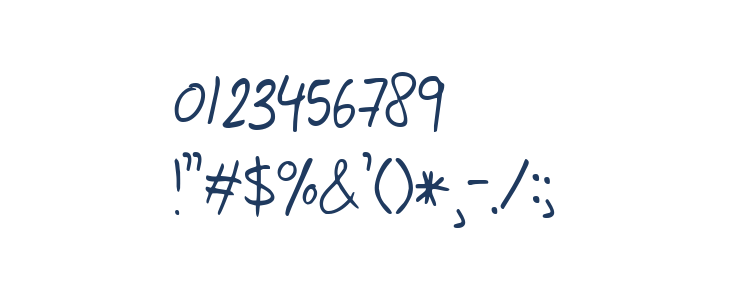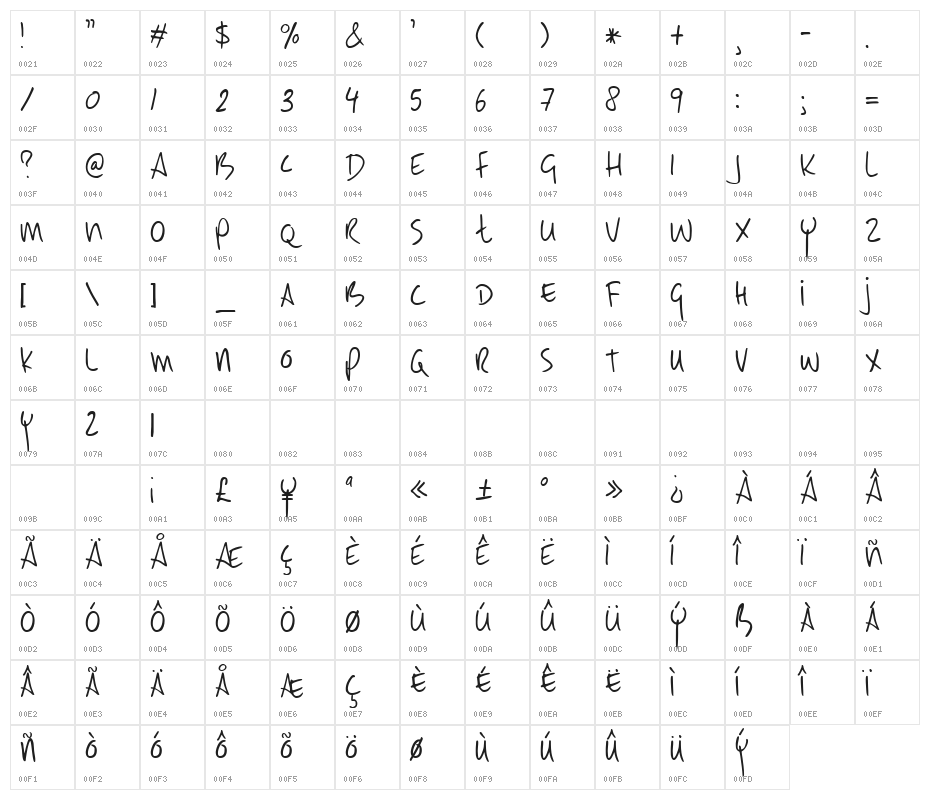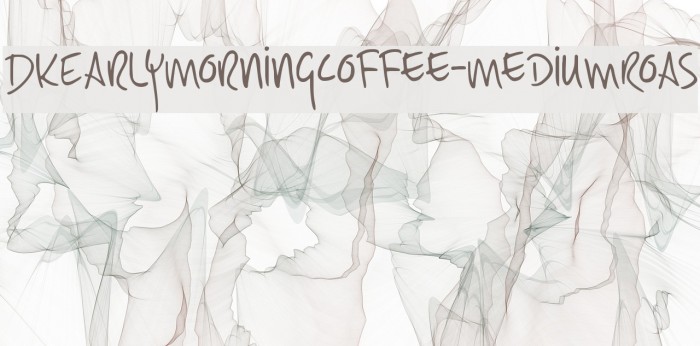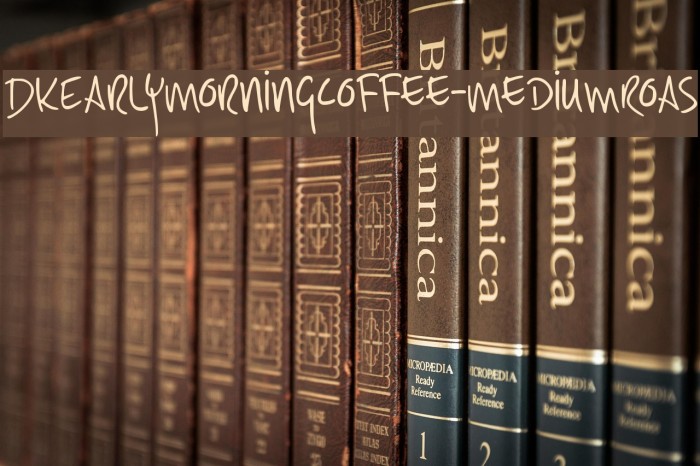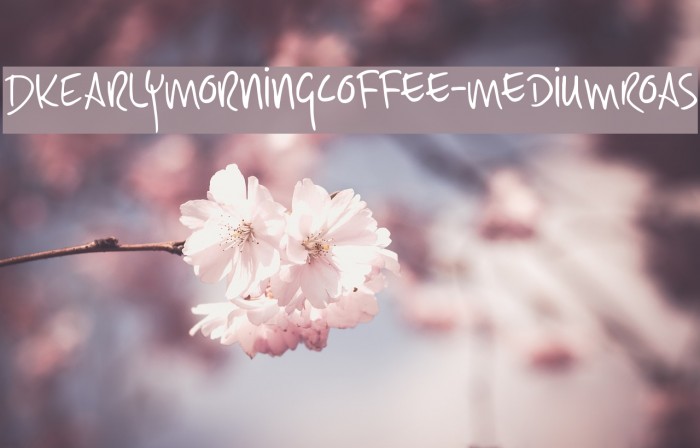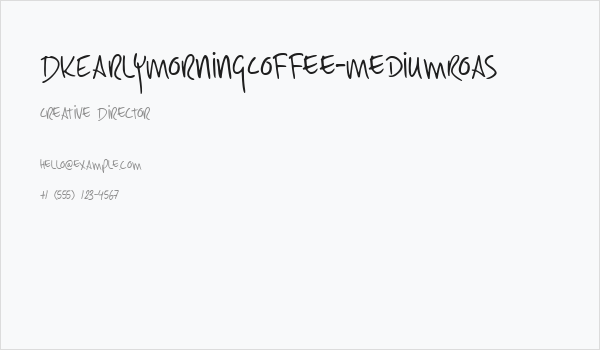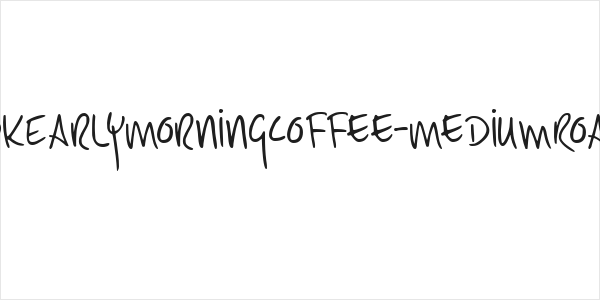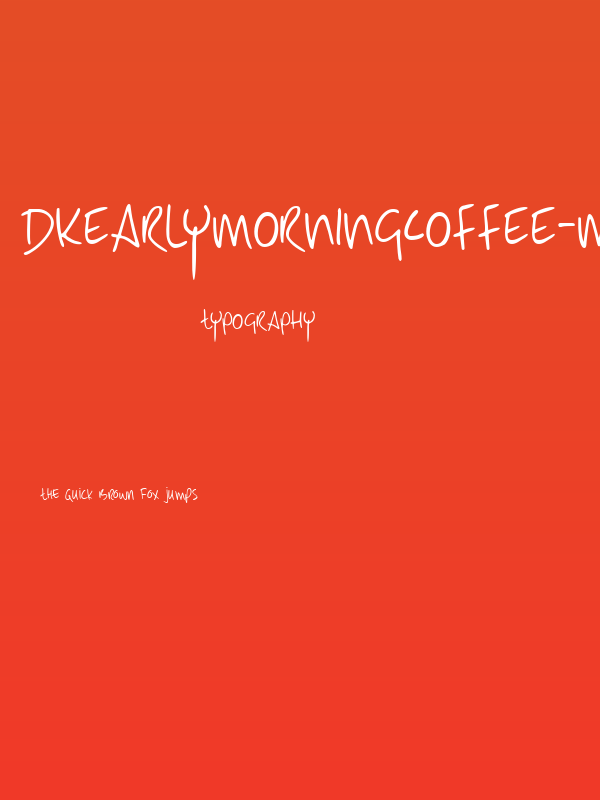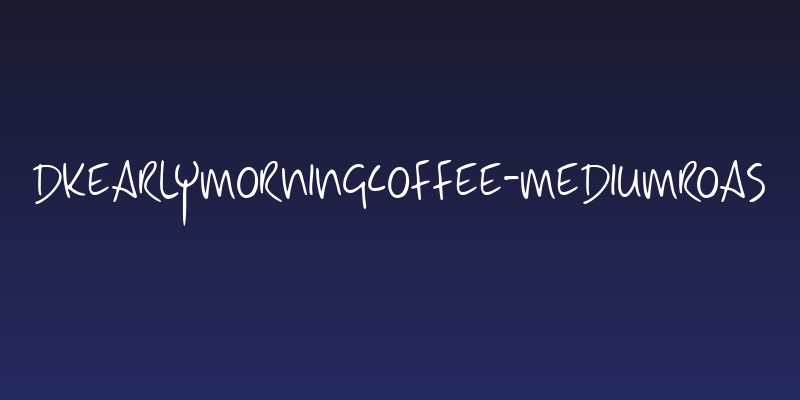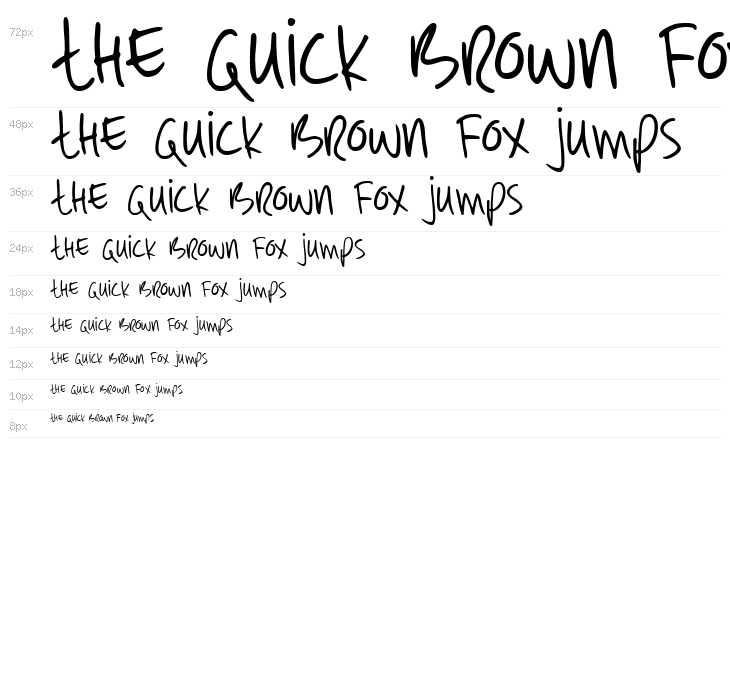
DKEarlyMorningCoffee-MediumRoas Font
DKEarlyMorningCoffee-MediumRoas Description
This font exudes a playful and casual handwritten style, characterized by its loose and flowing strokes. The letters are slightly irregular, giving it a personal and informal touch. It captures the essence of a relaxed, hand-drawn aesthetic, making it ideal for projects that require a friendly and approachable look. The characters are well-spaced, ensuring readability while maintaining a whimsical charm. Its unique style is perfect for creative projects that aim to convey warmth and personality.
| Proposed Projects | Ideal for greeting cards, personal blogs, children's books, and informal branding projects. |